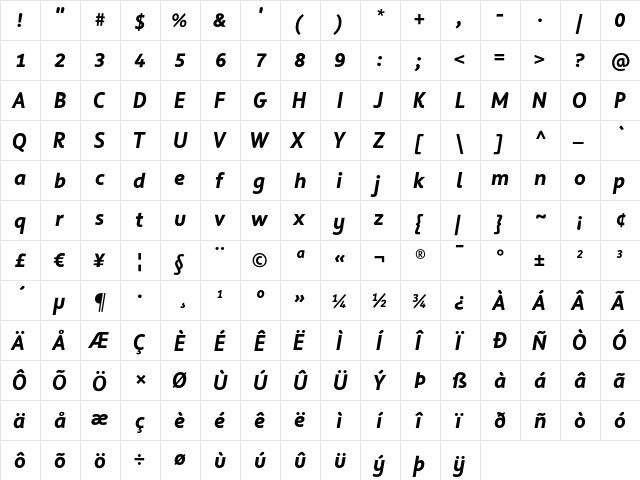
HarmonyText BoldItalic Font Preview
HarmonyText BoldItalic
HarmonyText BoldItalic Font Details
Design Context for HarmonyText Typeface
HarmonyText takes a measured approach to typography — its balanced proportions and neutral character make it a reliable workhorse for both digital and print work. The dynamic lean of this cut emphasises speed and emphasis in any layout. The heavy weight commands attention and anchors typographic hierarchies.
Pro Tip: Use HarmonyText for emphasis, pull quotes, and subheadings where its slanted energy can add rhythm to the layout.